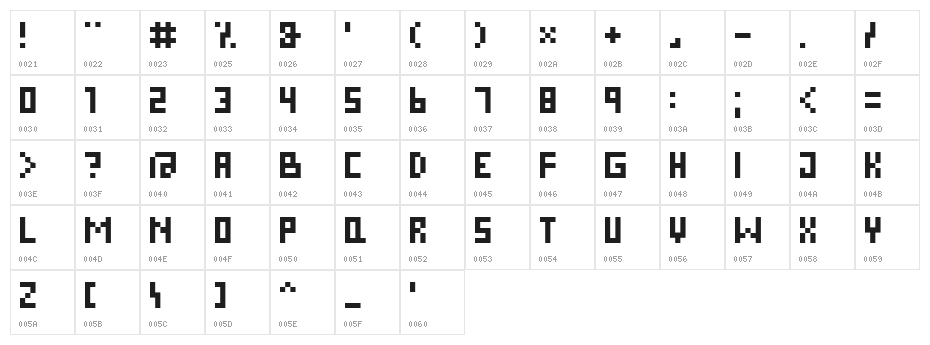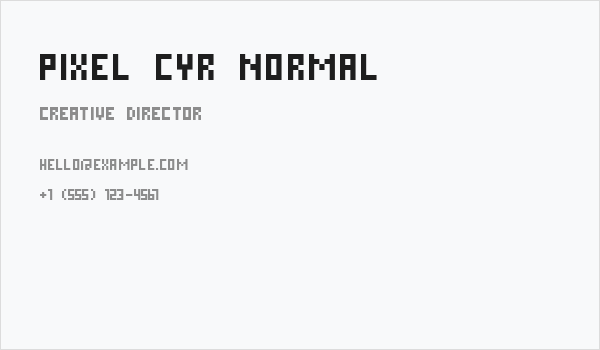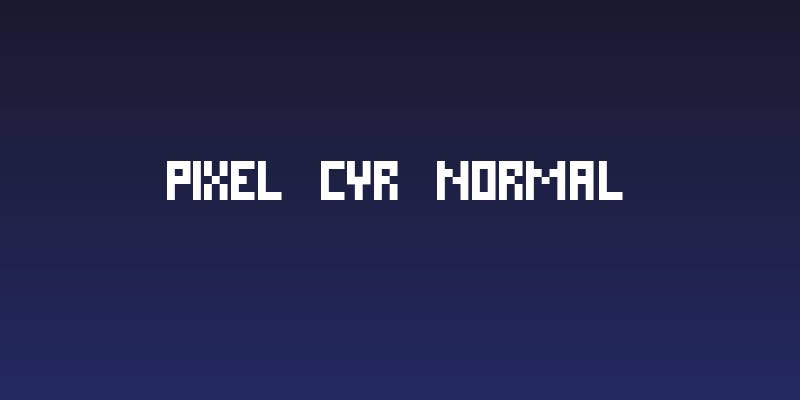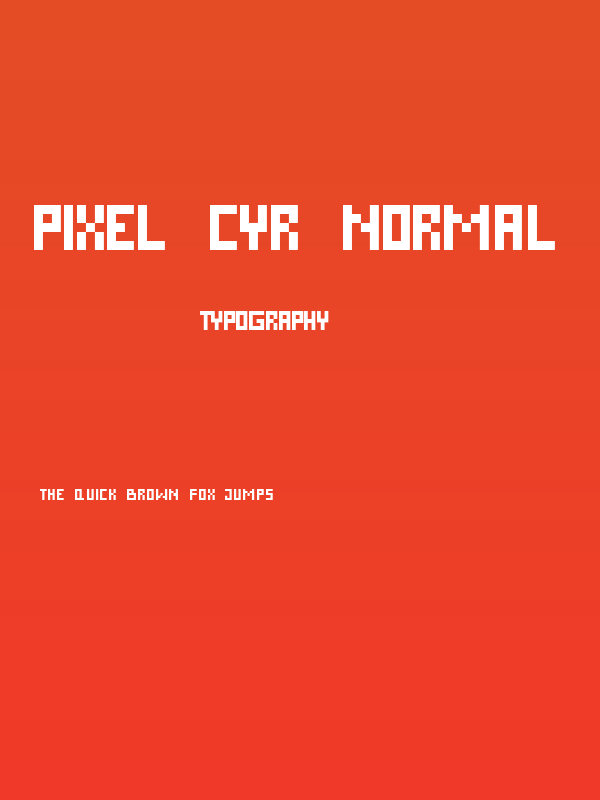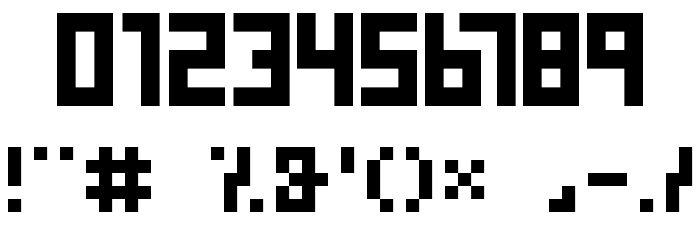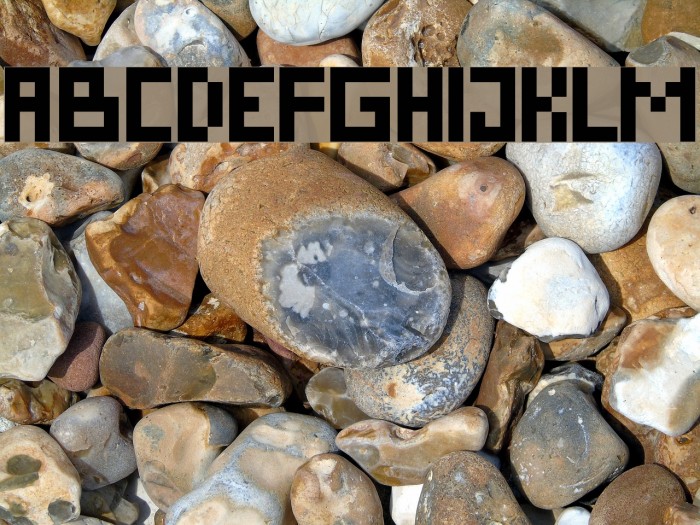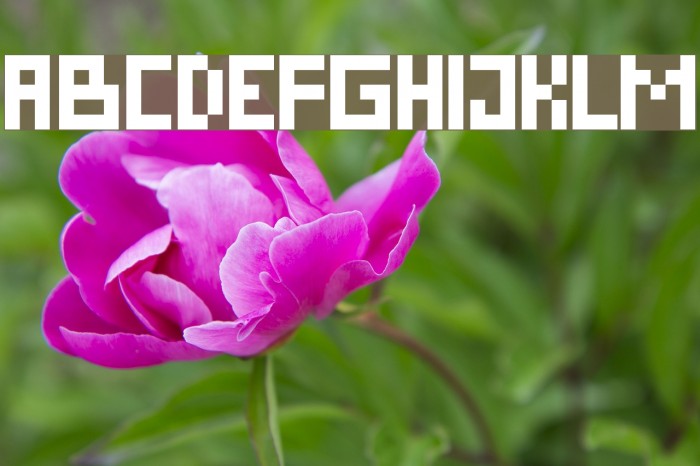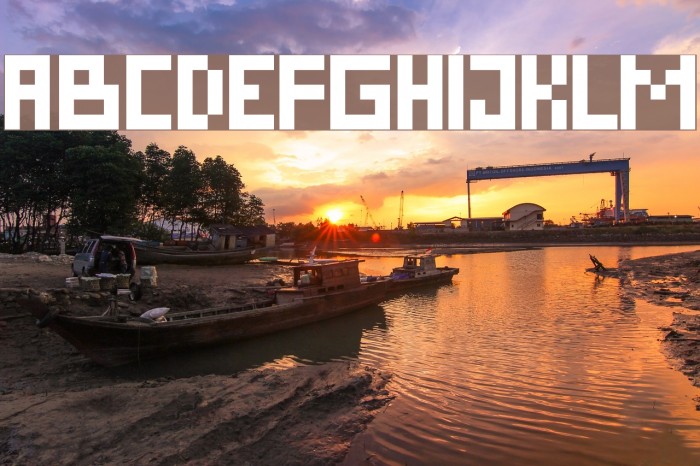
Pixel Cyr Normal Font
Pixel Cyr Normal Description
This font exhibits a bold, pixelated style reminiscent of early digital displays and retro video games. Each character is constructed with a blocky, grid-like structure, giving it a distinctly geometric and mechanical appearance. The uniformity in stroke width across all characters contributes to its cohesive and consistent look. Despite its rigid form, the font maintains a clear legibility, making it suitable for various digital applications. The uppercase and lowercase letters share a similar height, enhancing its compact and efficient design. Numbers and special characters follow the same pixelated theme, ensuring a harmonious visual experience throughout.
| Overall Style | Retro, Digital |
| Use Case | Headlines, Logos, Digital displays |
| Proposed Projects | Ideal for retro-themed video games, digital art projects, and any design work that seeks to evoke a sense of nostalgia for early computing or gaming eras. |